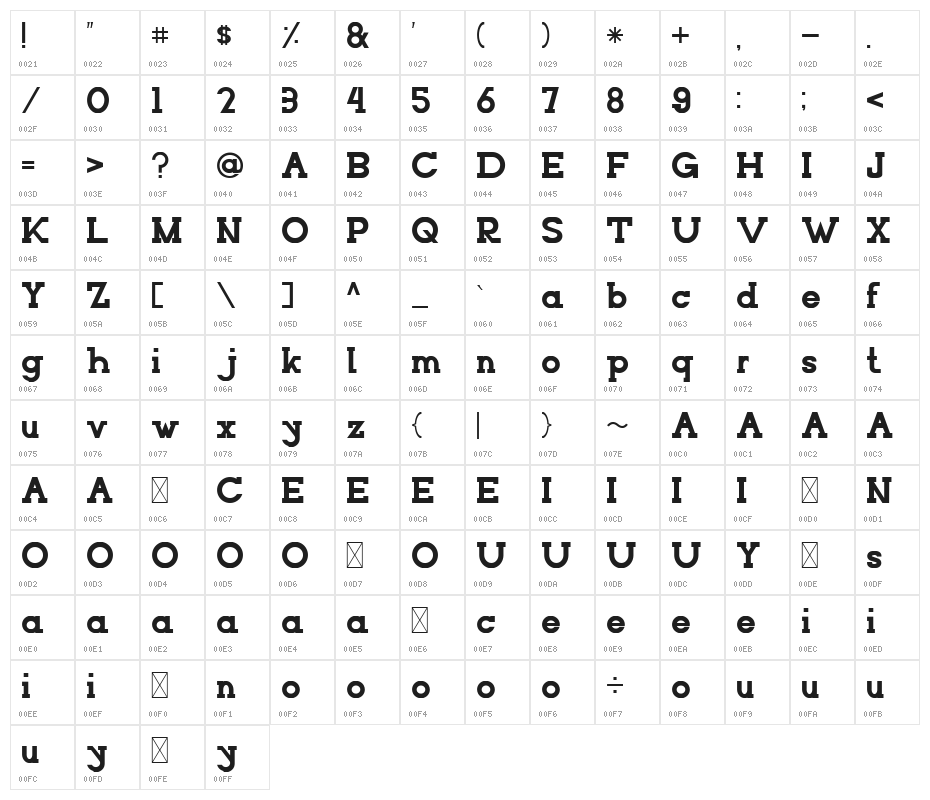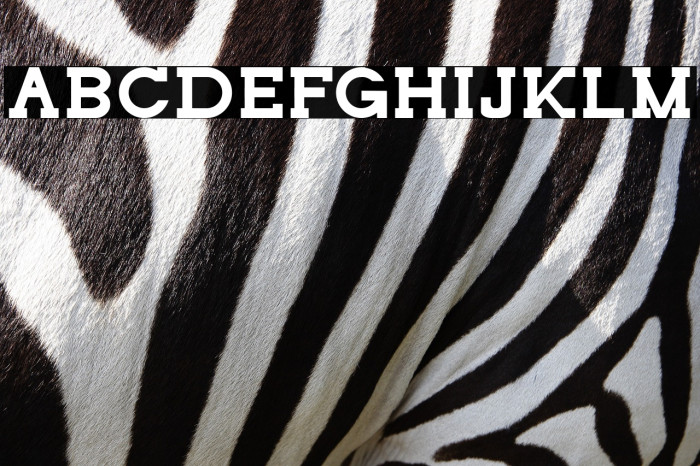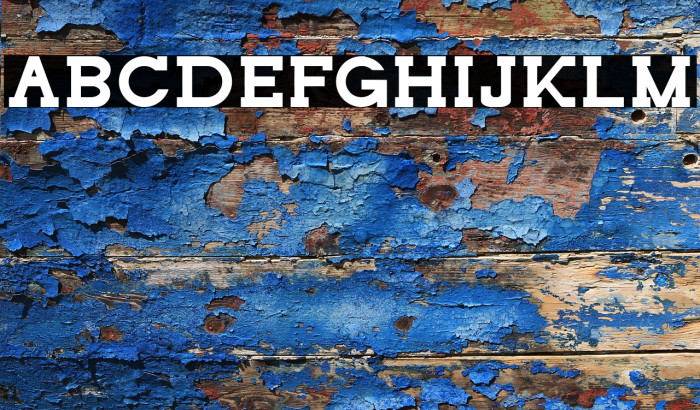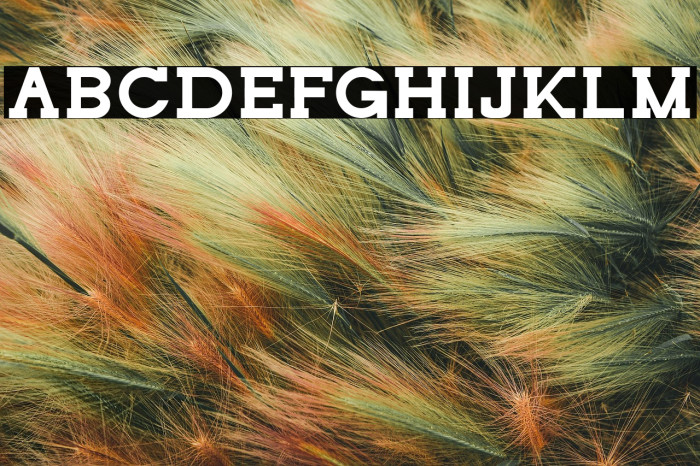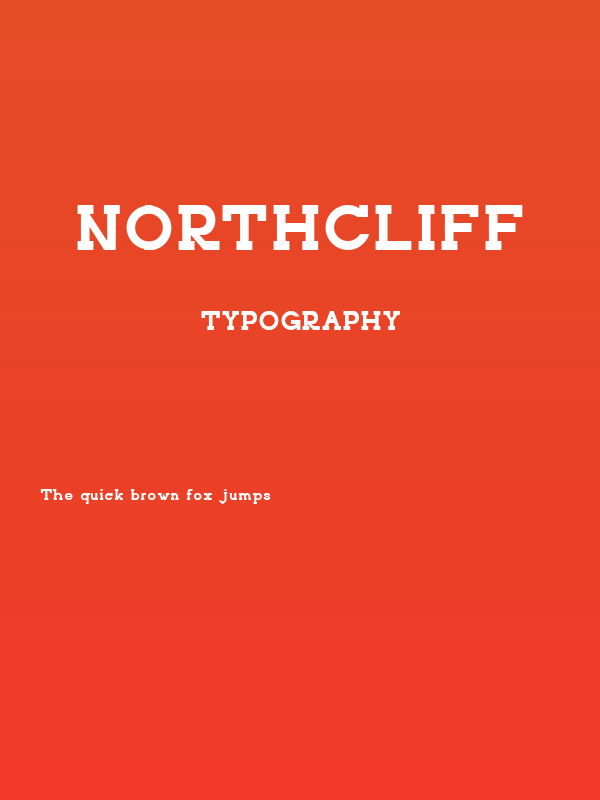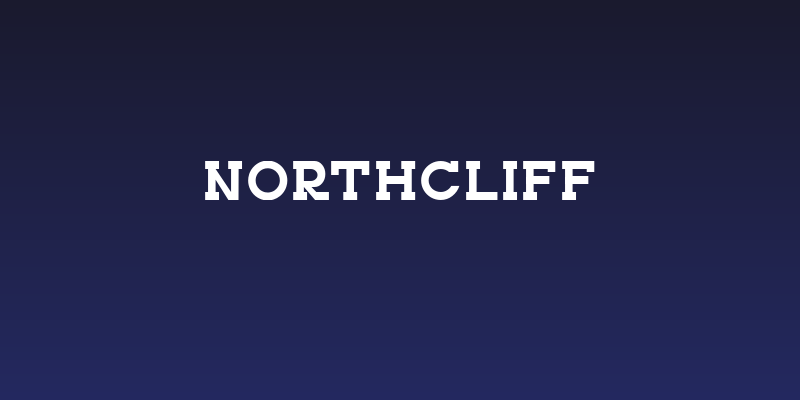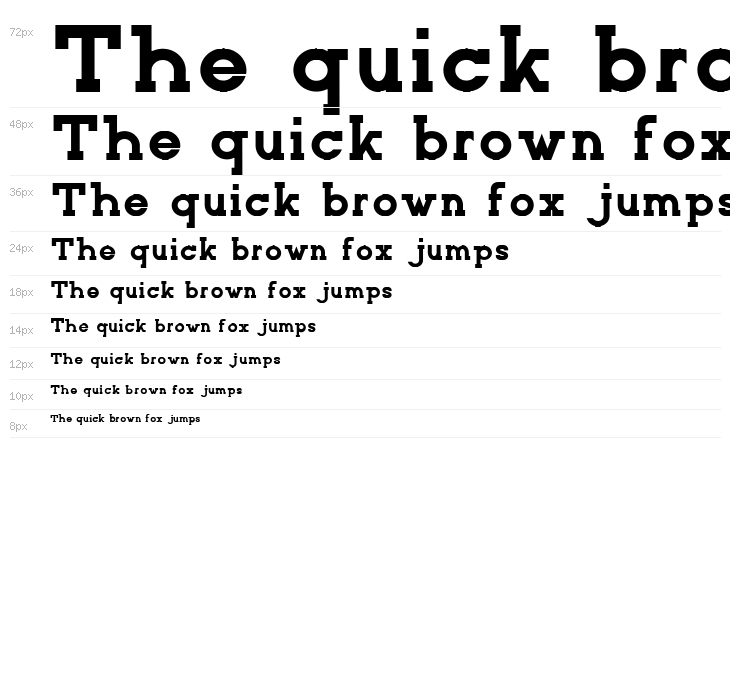
NORTHCLIFF Font
NORTHCLIFF Description
This font features bold, slab serif characters with a strong and sturdy appearance. The uppercase letters are uniform in height, providing a sense of stability and balance. The lowercase letters maintain a consistent style, with rounded edges that soften the overall look. Numbers are clear and easy to read, making them suitable for various applications. The special characters are well-defined, ensuring versatility in design projects. The font's boldness and distinct serifs make it ideal for creating impactful headlines and titles.